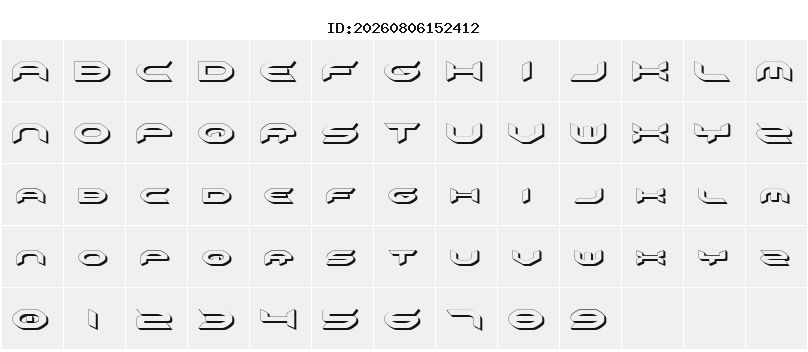
Omni Girl 3D Preview
• Font Name: Omni Girl 3D
• Font Style: 3D
• Font ID: Omni Girl 3D
• Full Font Name: Omni Girl 3D
About Omni Girl 3D.ttf
Omni Girl 3D.ttf is a modern, elegant sans-serif font designed for ultimate readability and visual harmony. Perfect for branding, headlines, web design, and print materials.